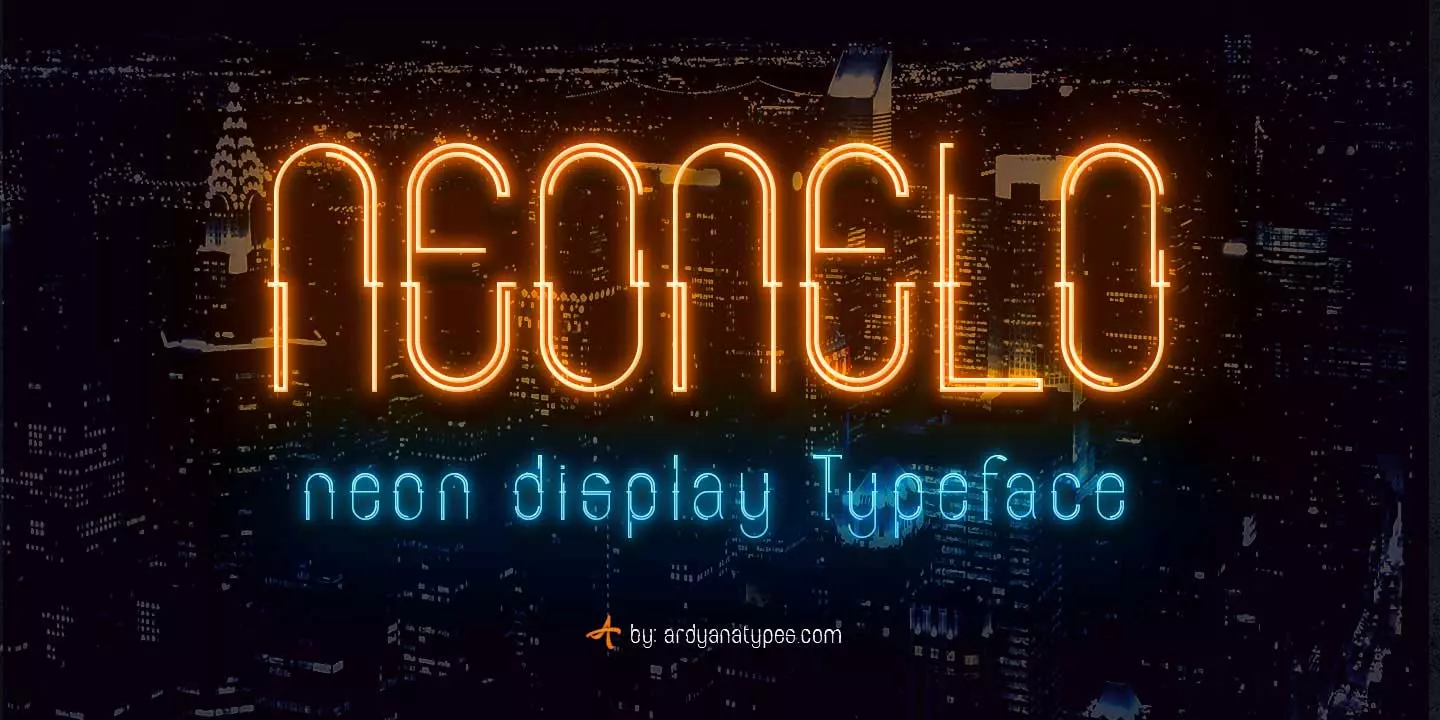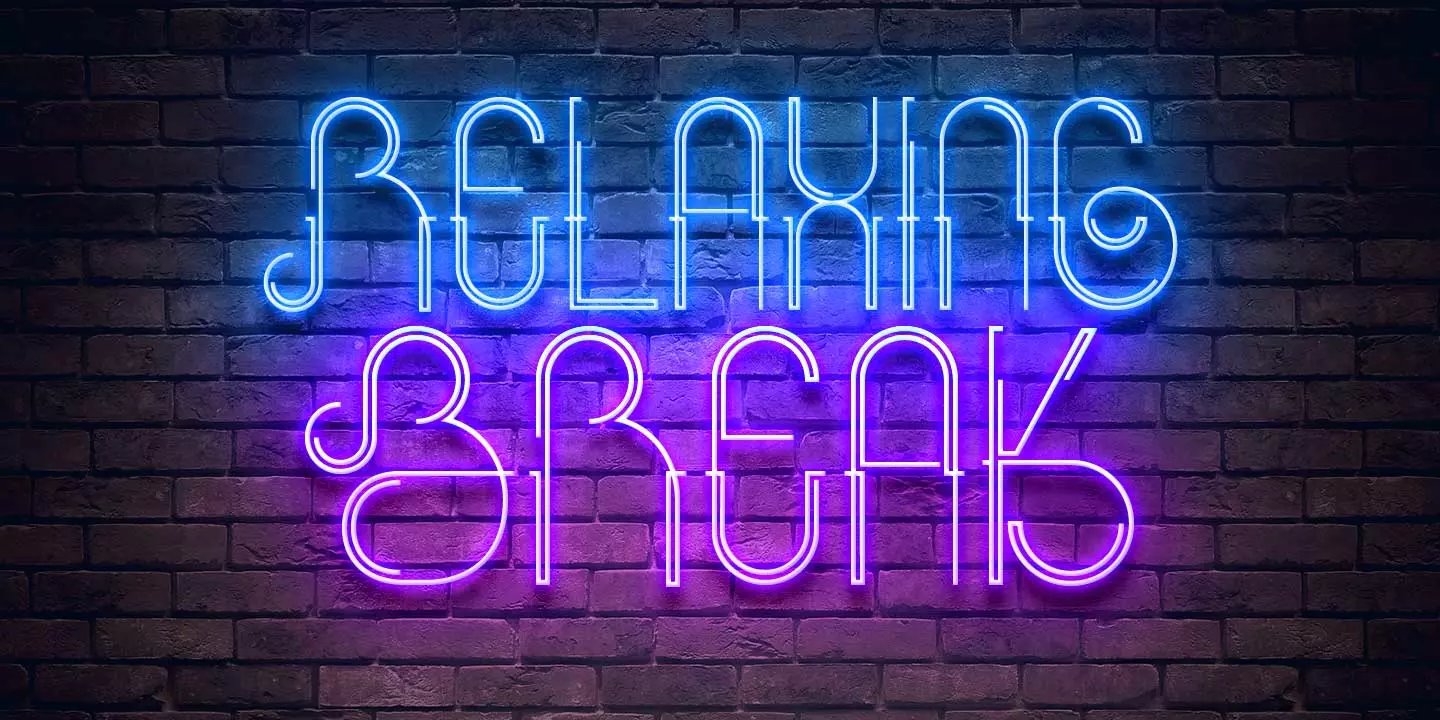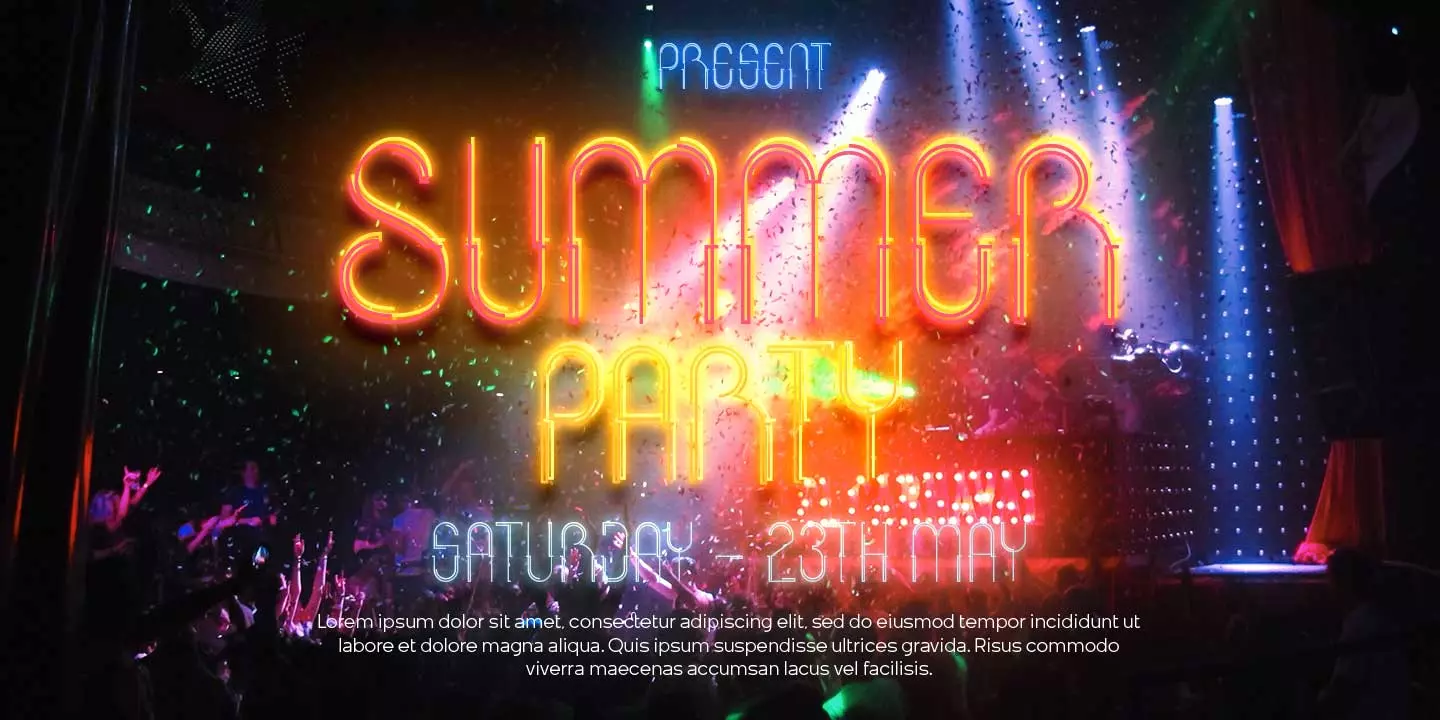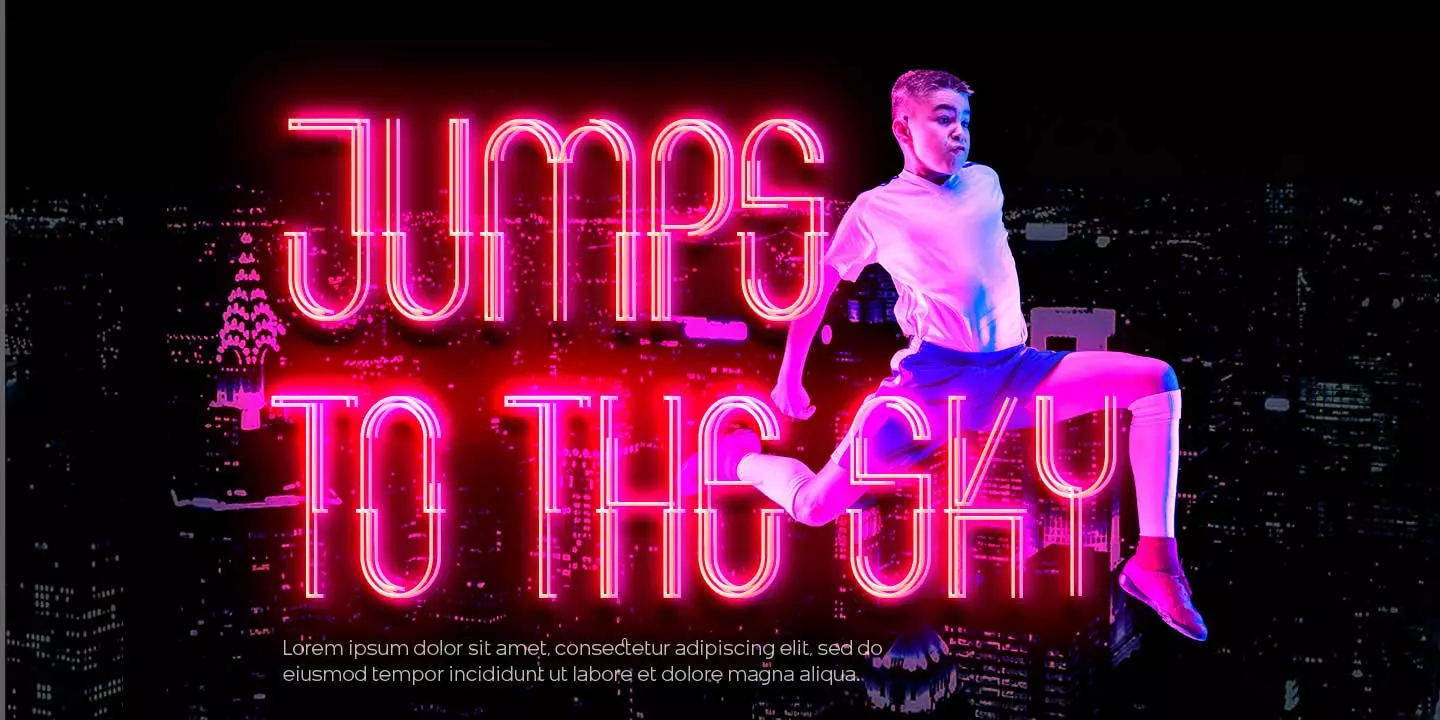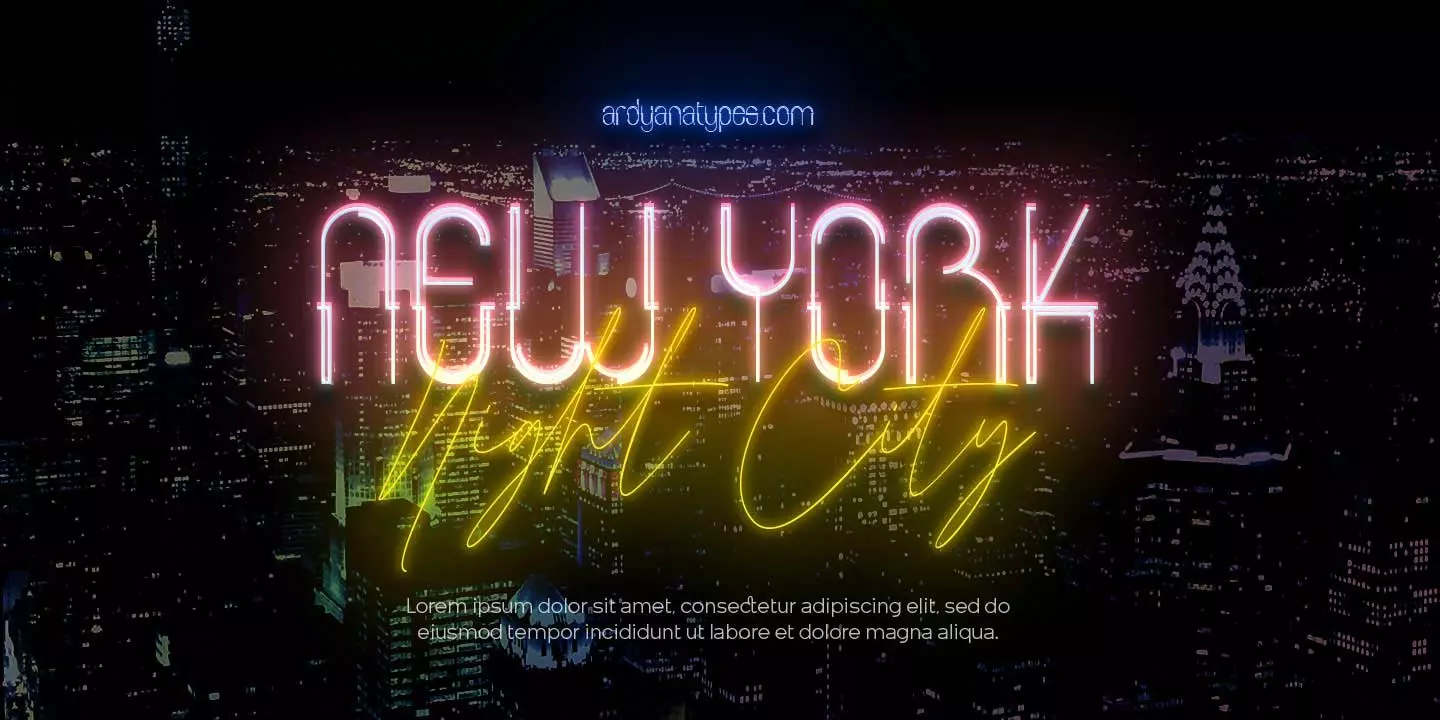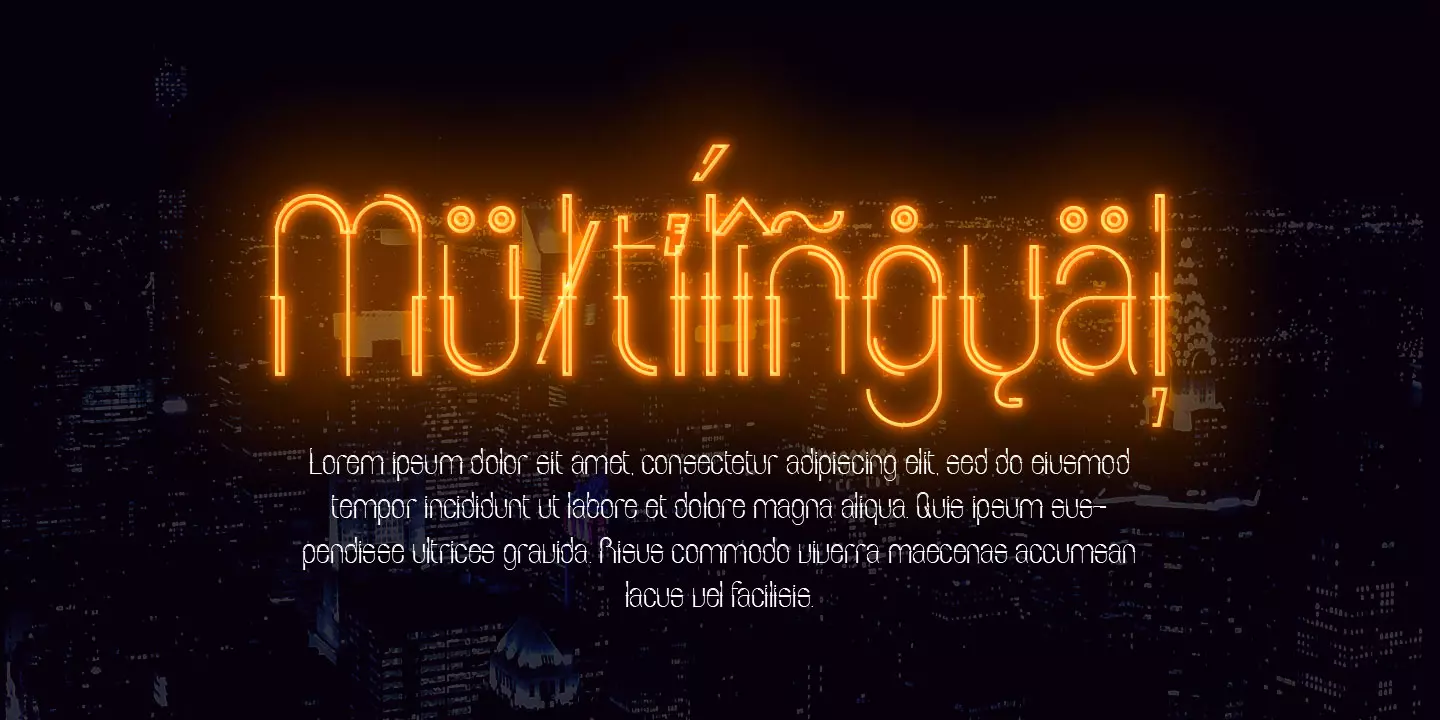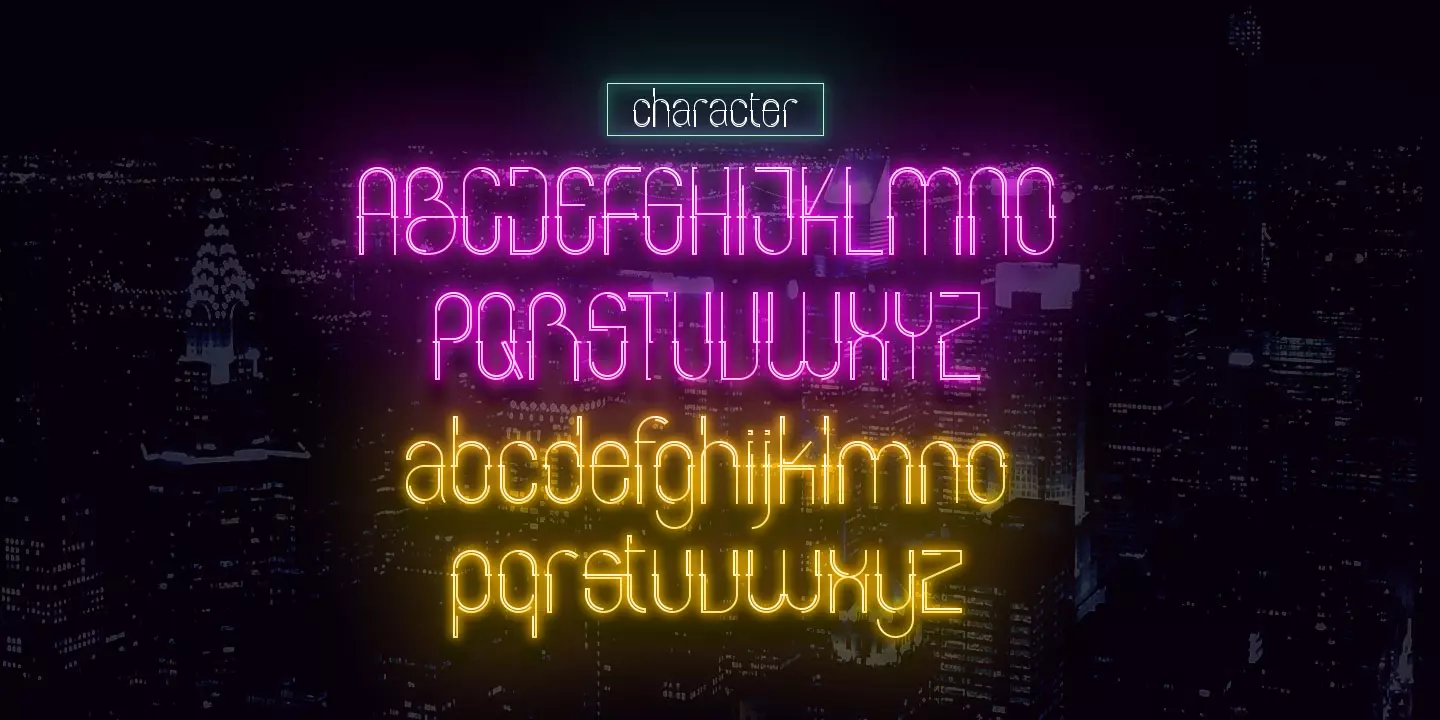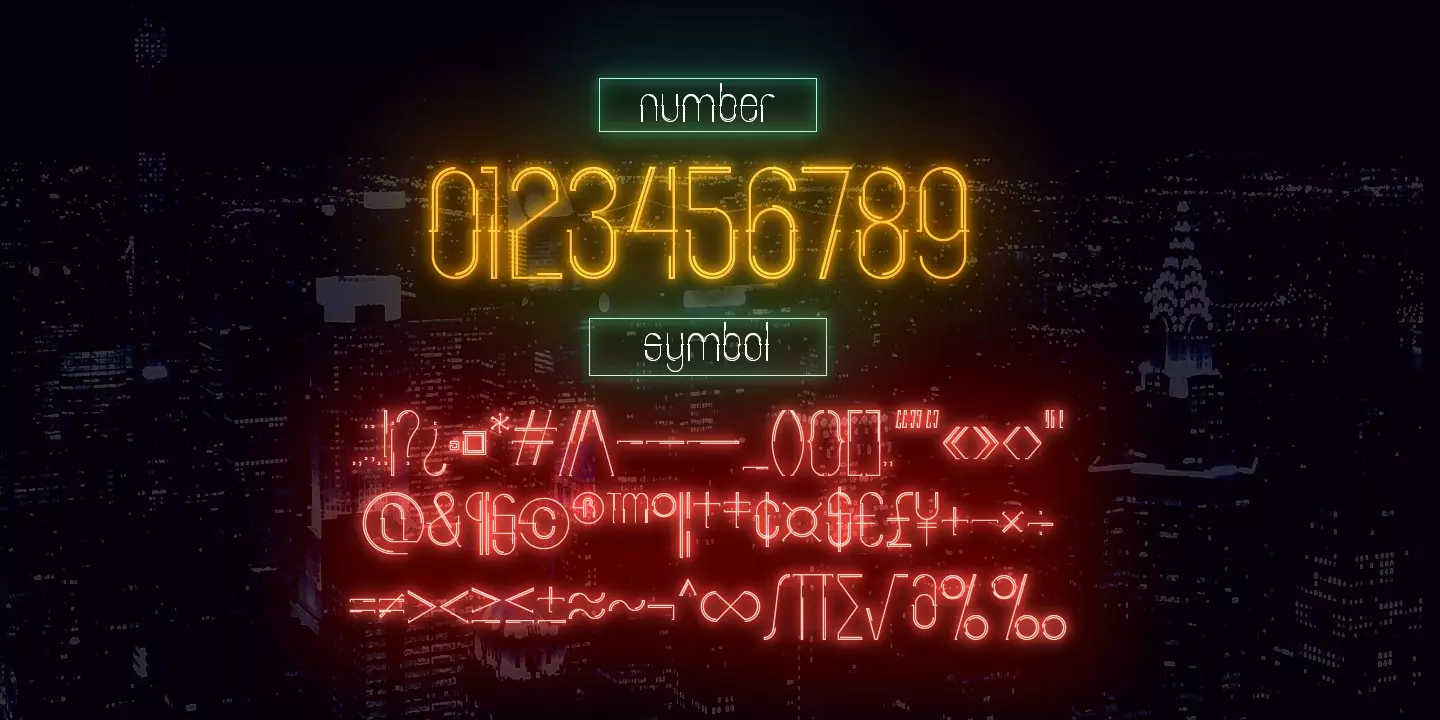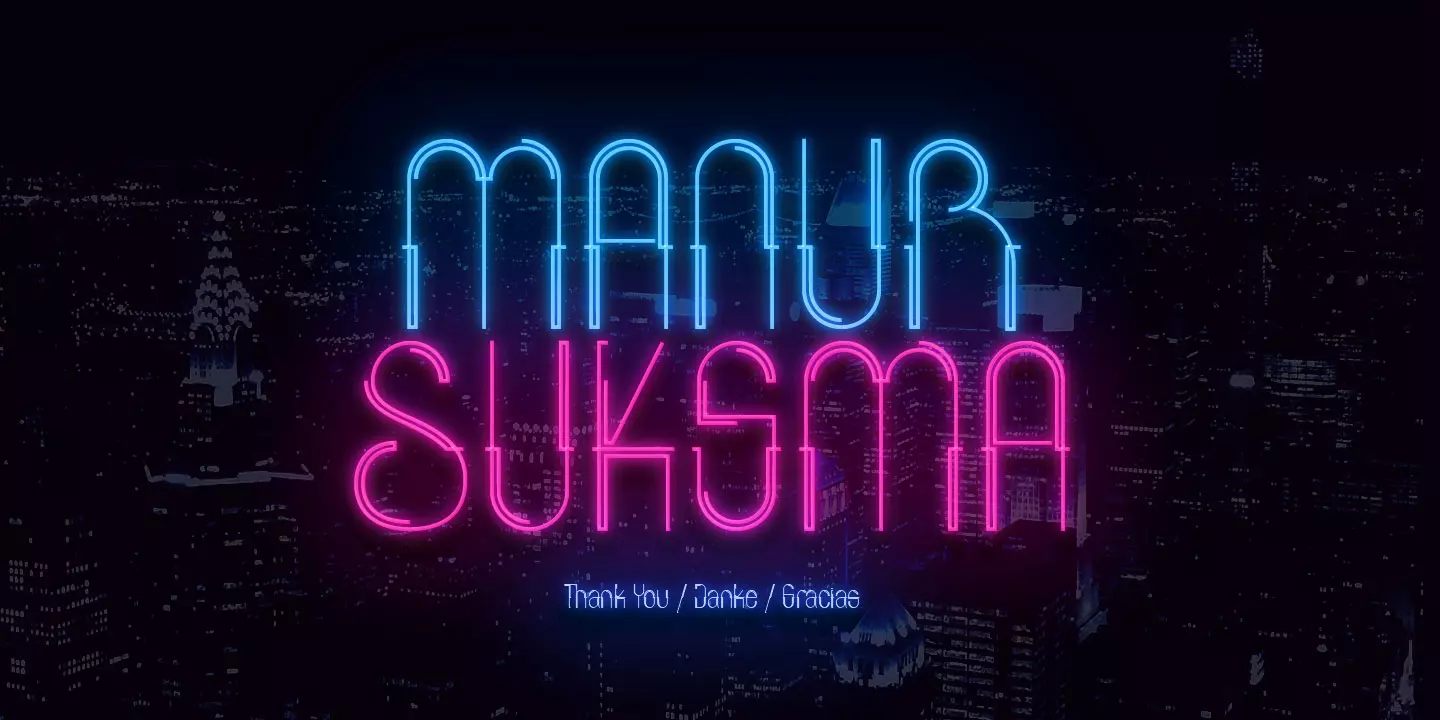
Neonelo
Neonelo comes with a unique retro style and has an extraordinary shape, and it is possible to add effects such as very bright neon lights. This is very suitable for use in any design that requires the appearance of a classic neon light effect. Neonelo also comes with a complete multilingual so that it can be used in every country. Neonelo also has an OpenType feature that can be used, such as alternative letters, so it has many choices. Neonelo is very suitable to be used for branding needs such as posters, business cards, logos, signs and much more.